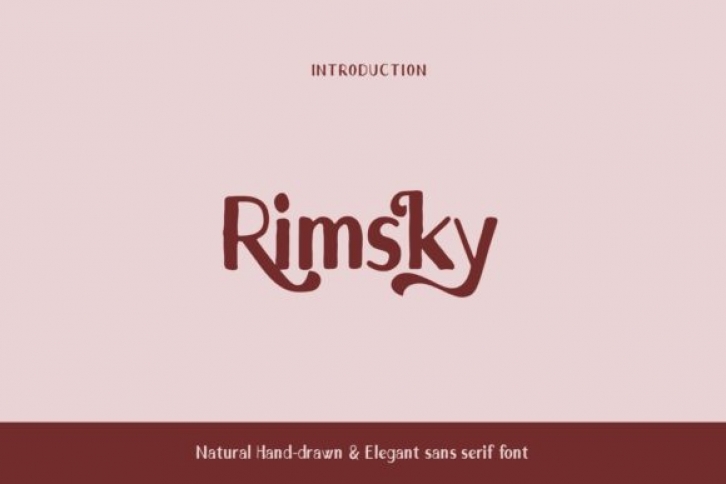
Rimsky is an elegant and simple sans serif font. It is suitable for any branding, product packaging, invitation, quote, t-shirt, label, poster, logo that you wish to develop.